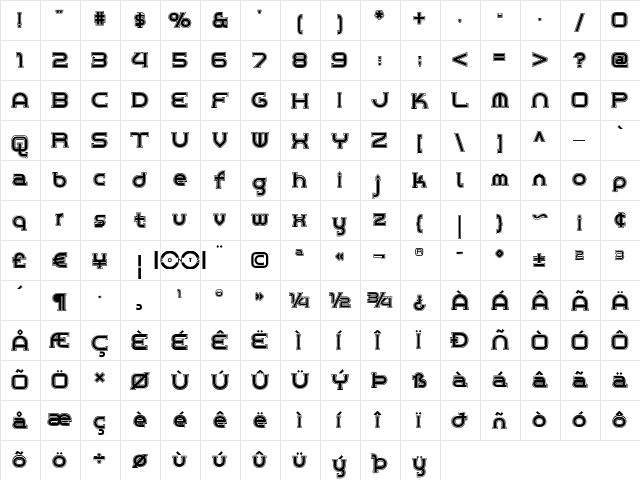
Chrome Yellow Inline NF Regular
Design Context for Chrome Yellow Inline NF Typeface
Chrome Yellow Inline NF is built around its visual character rather than neutral utility — its distinctive forms are designed to make an impression at display sizes.
Font Pairing: Pair with a clean neutral sans-serif for body copy to let Chrome Yellow Inline NF's character lead without overwhelming the composition.
Pro Tip: Treat Chrome Yellow Inline NF as the centrepiece of your typographic hierarchy. One strong heading set in a decorative face can carry an entire layout.